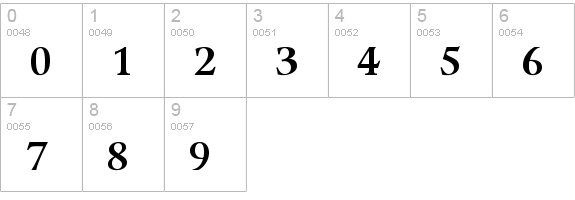
Guardi 75 Bold is a strong, high-contrast variant in the Guardi typeface family \xE2\x80\x94 well suited to headlines, attention-grabbing titles, and strong calls-to-action.
Guardi 75 Bold is a modern and stylish font that exudes confidence and authority. With its bold weight and clean lines, this typeface makes a strong statement in any design project. Whether you're creating a poster, logo, or website, Guardi 75 Bold will command attention and leave a lasting impression. The best part? Guardi 75 Bold is completely free to download at FontsMarket.com. This means you can enhance your projects with this striking font without any cost. Don't miss out on the opportunity to elevate your designs with Guardi 75 Bold - download it today and make a bold statement!